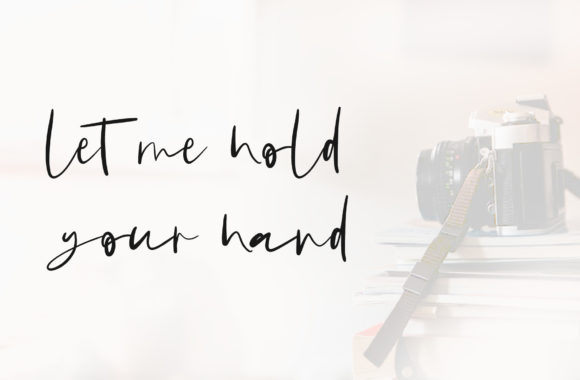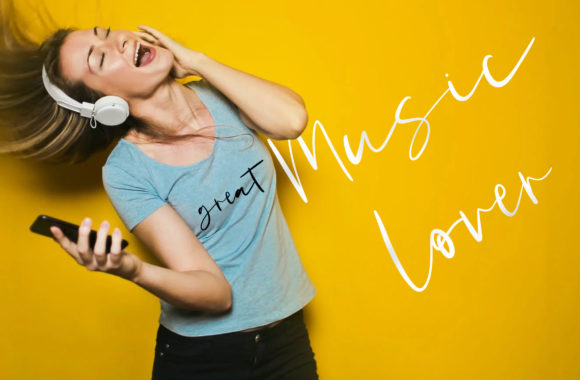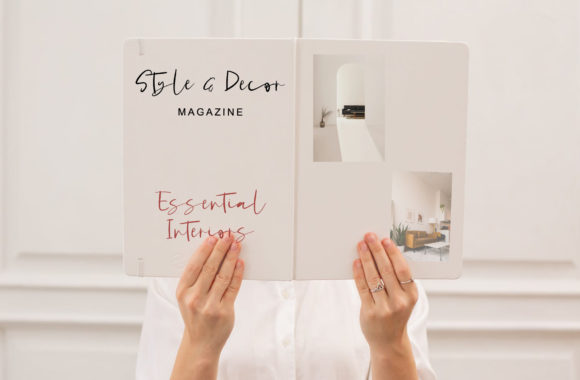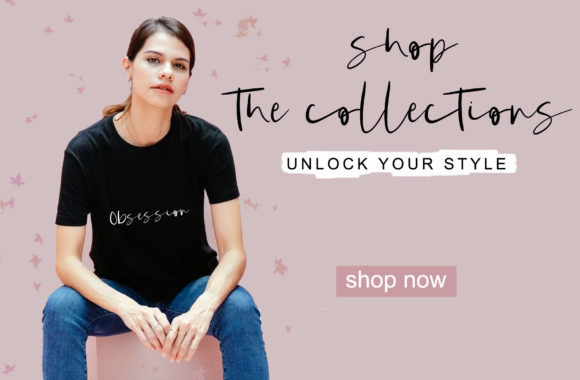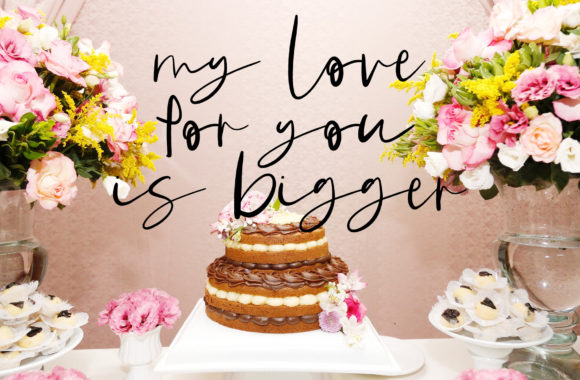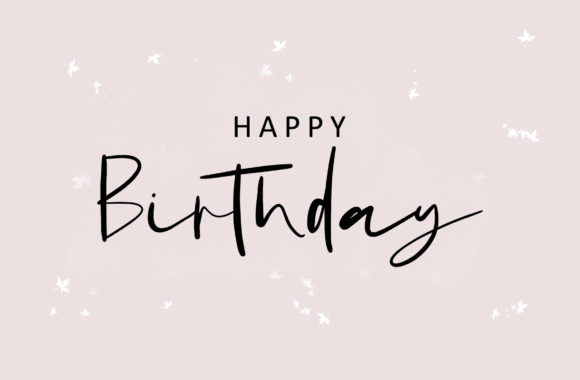
Introduction to Grated Cheese Font
Grated Cheese is a thin lettered and graceful script font.
Fall for its ravishing style and use it to create gorgeous wedding invitations, beautiful stationary art, eye-catching social media posts, and much more .